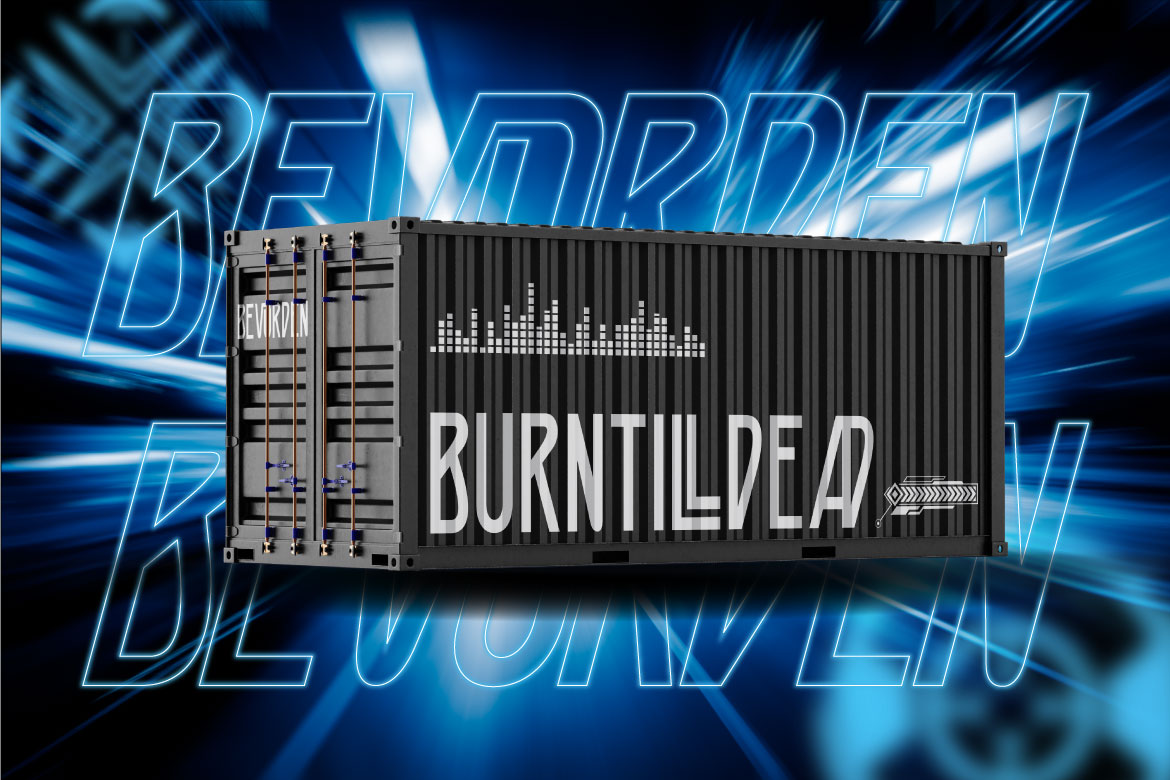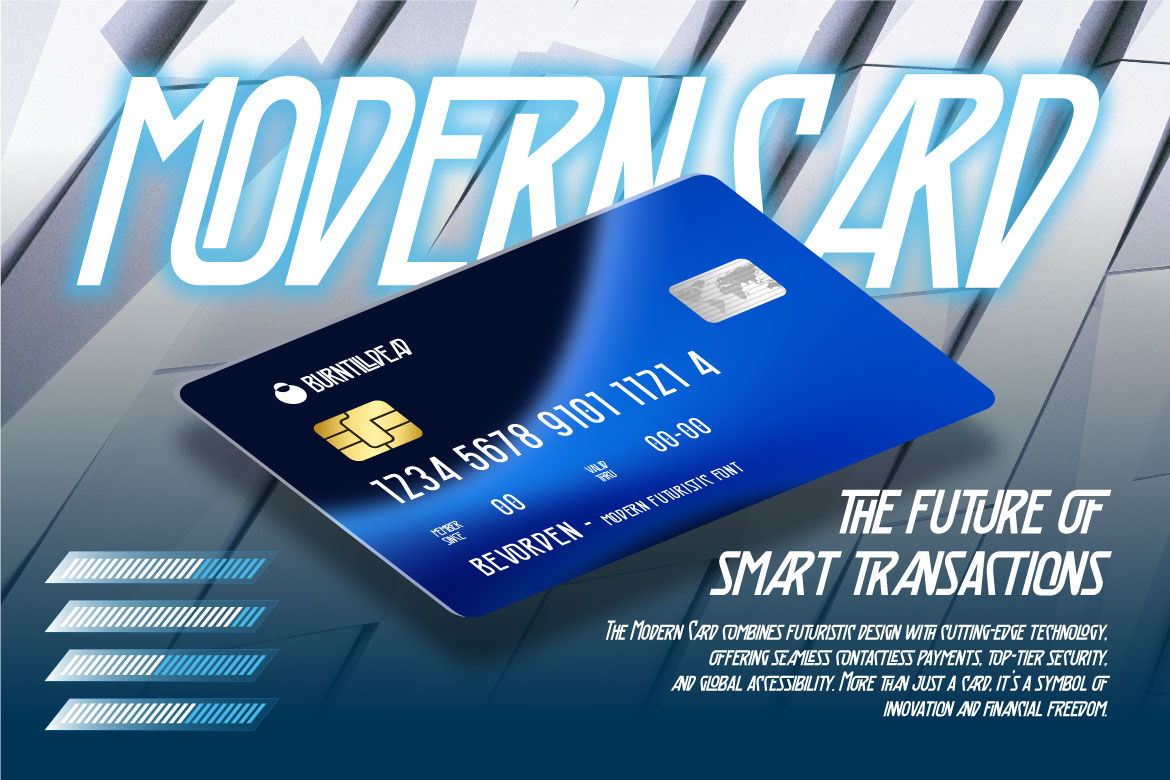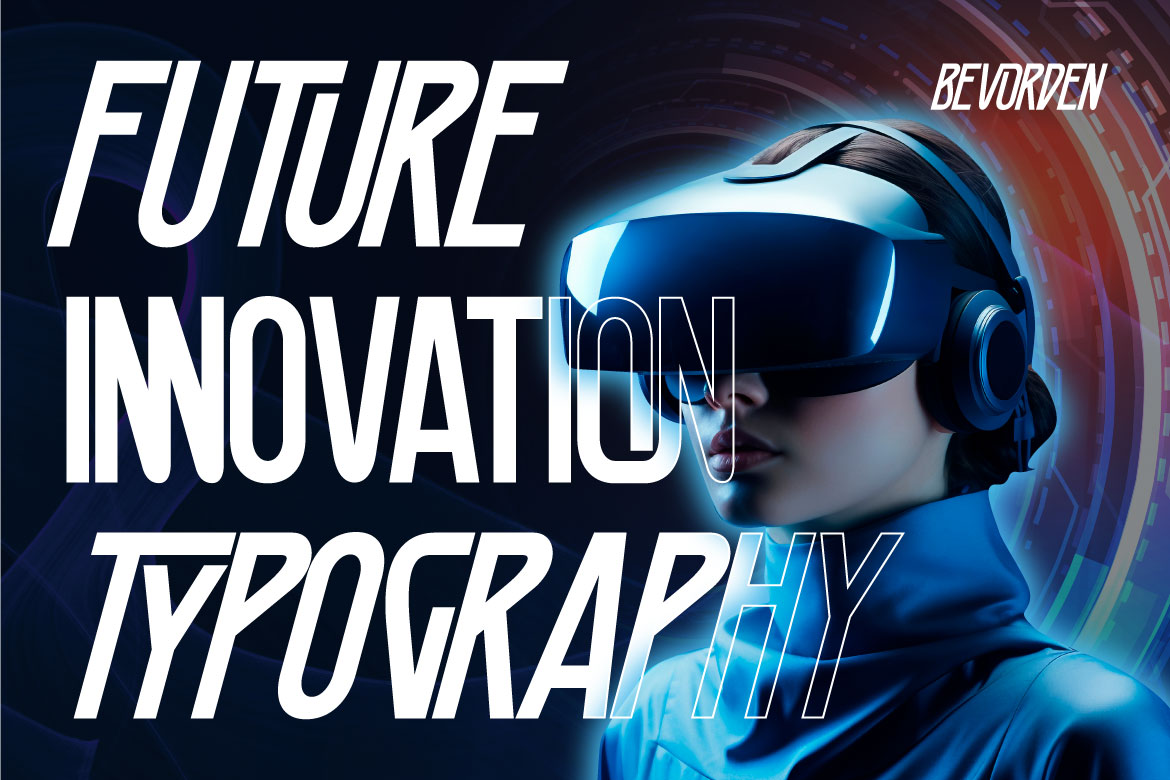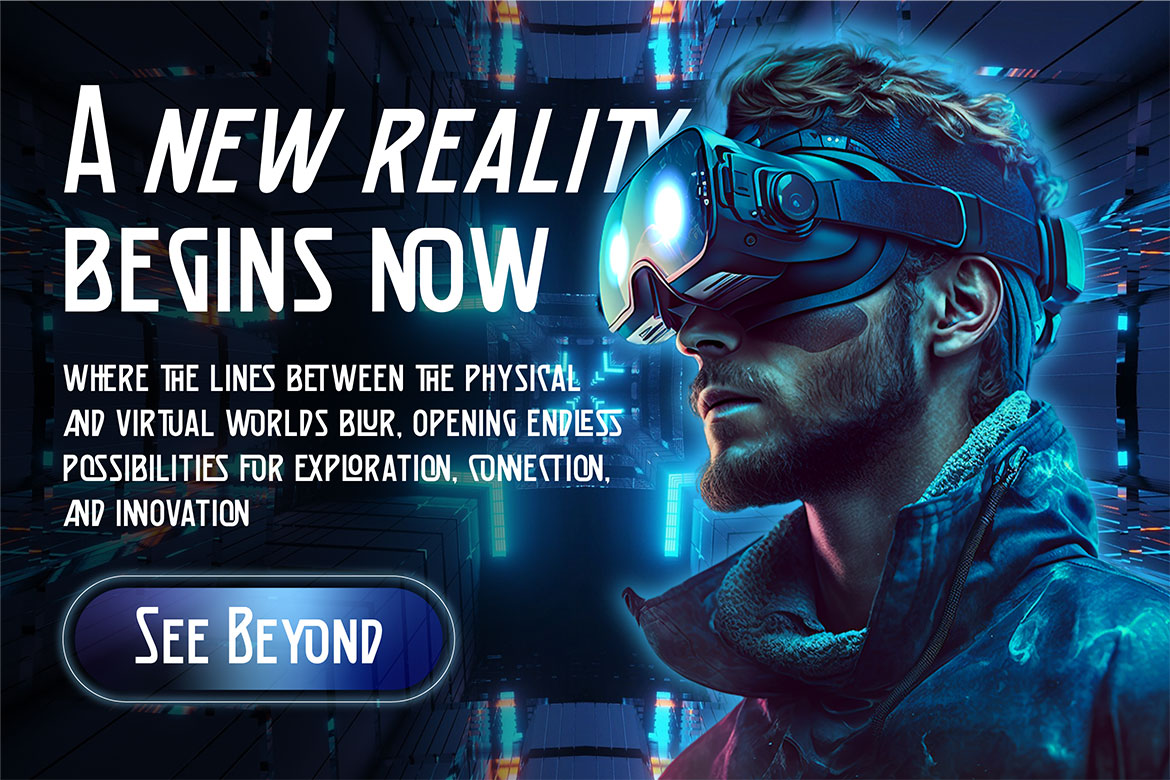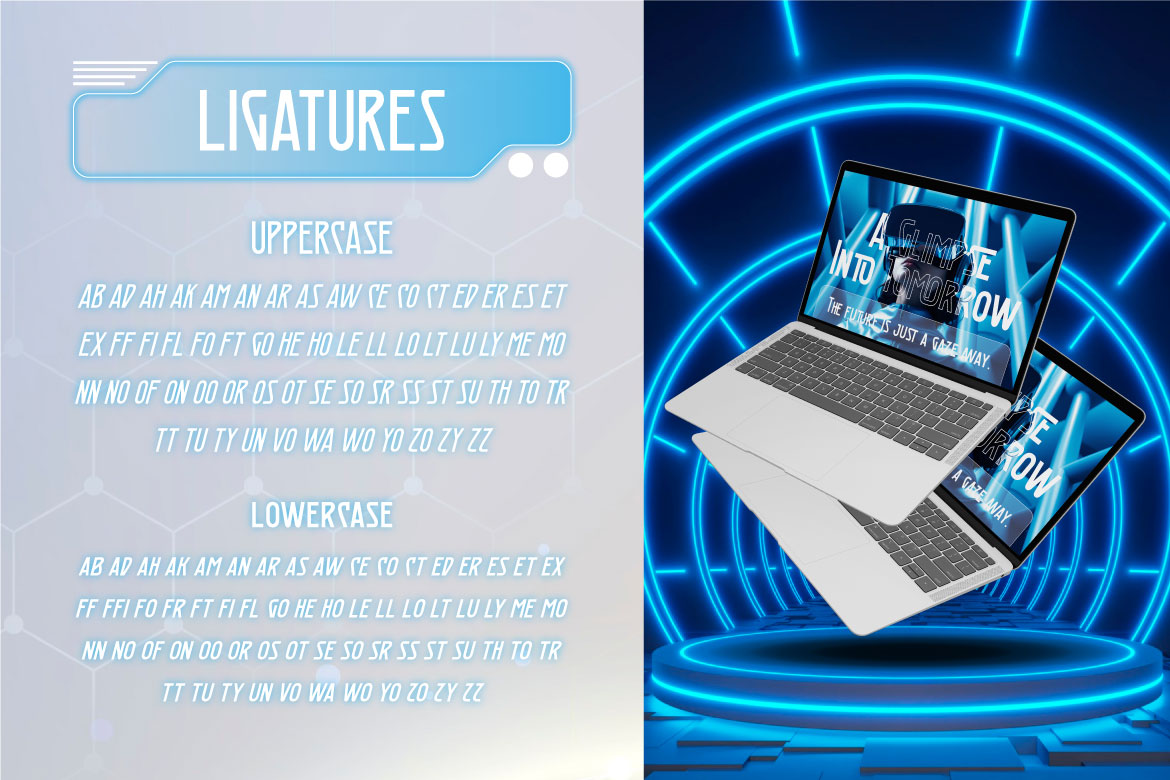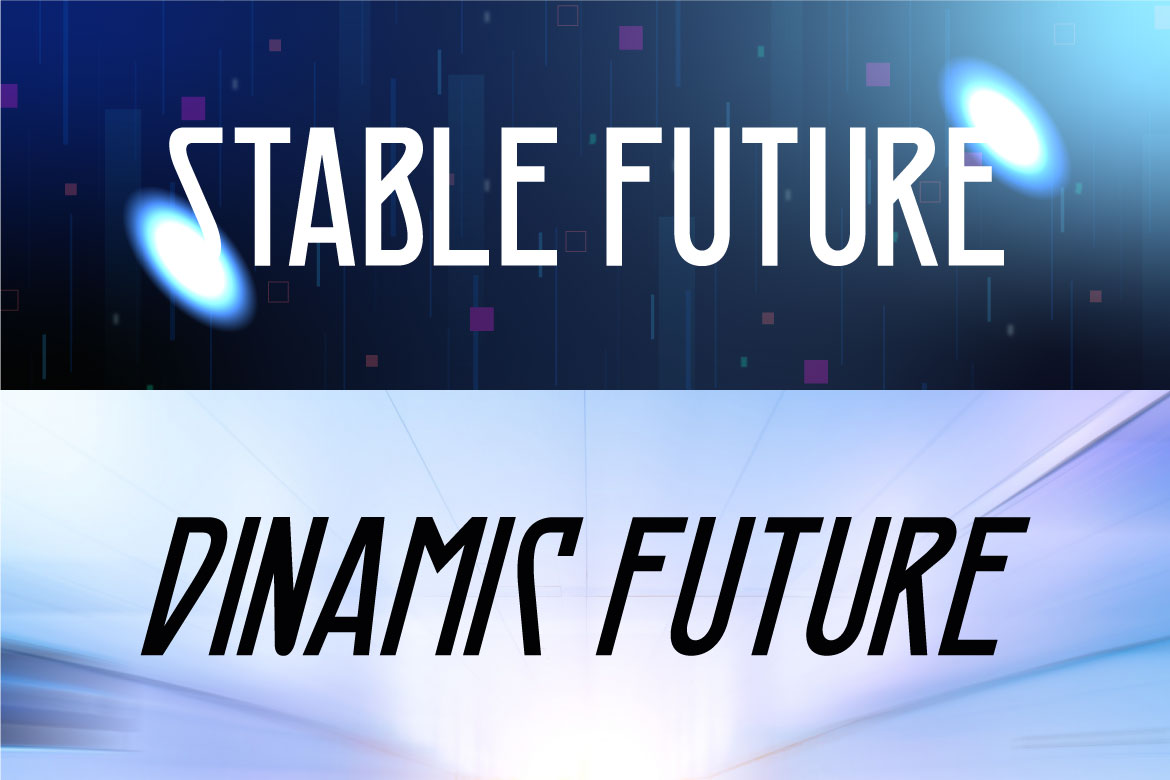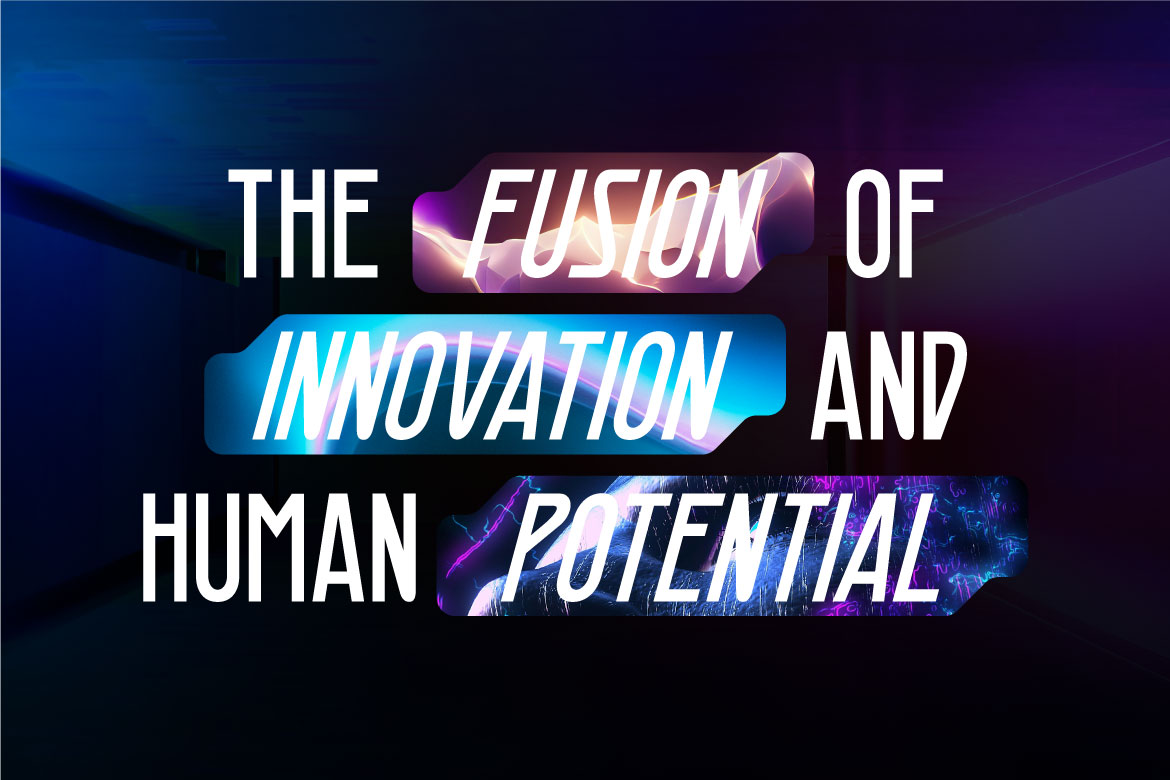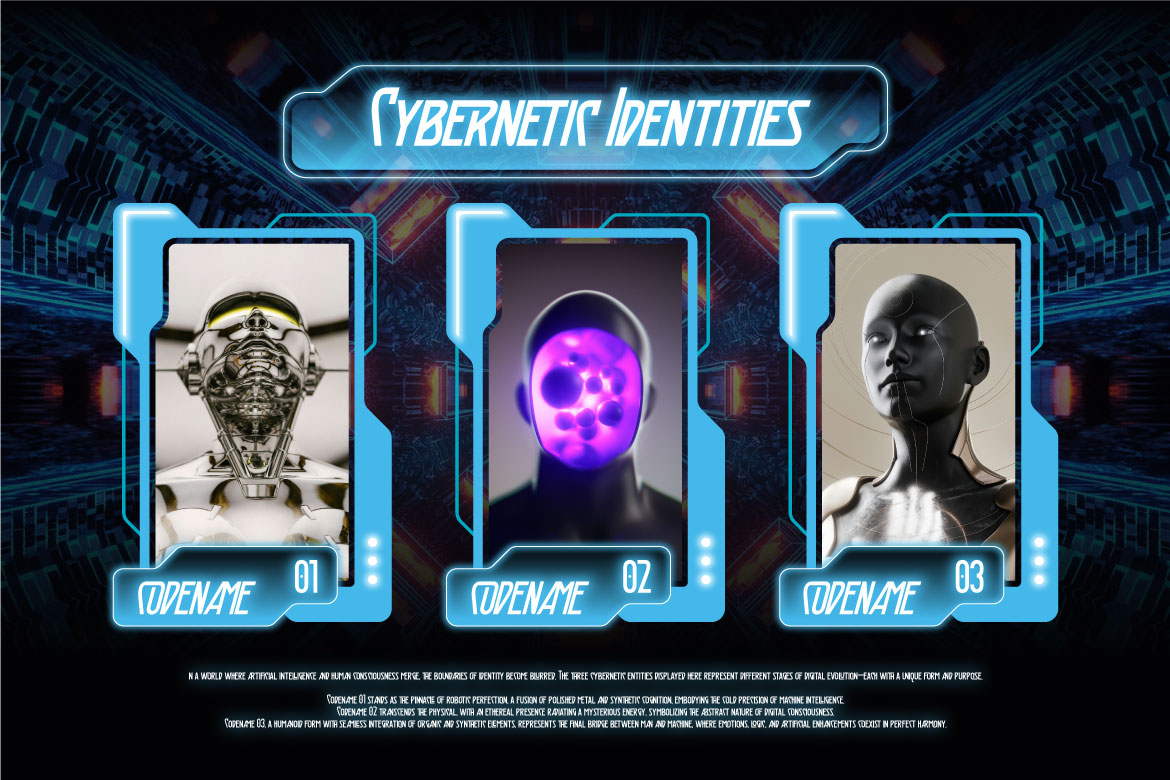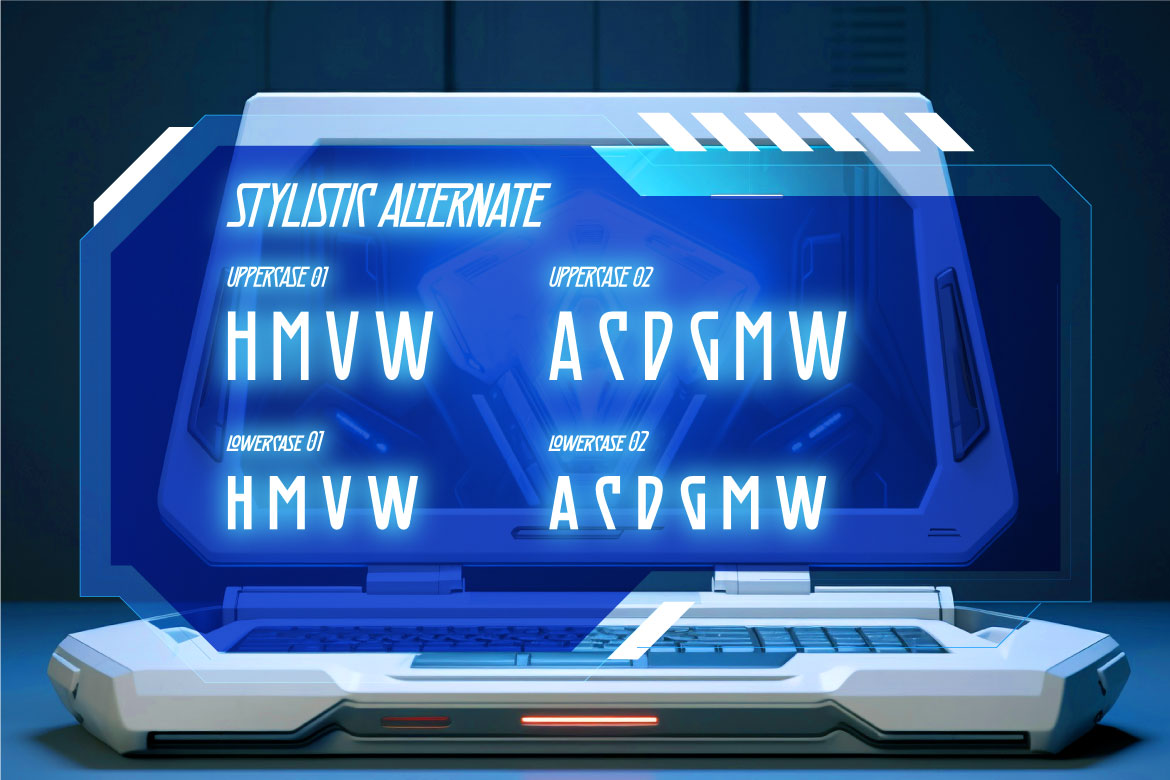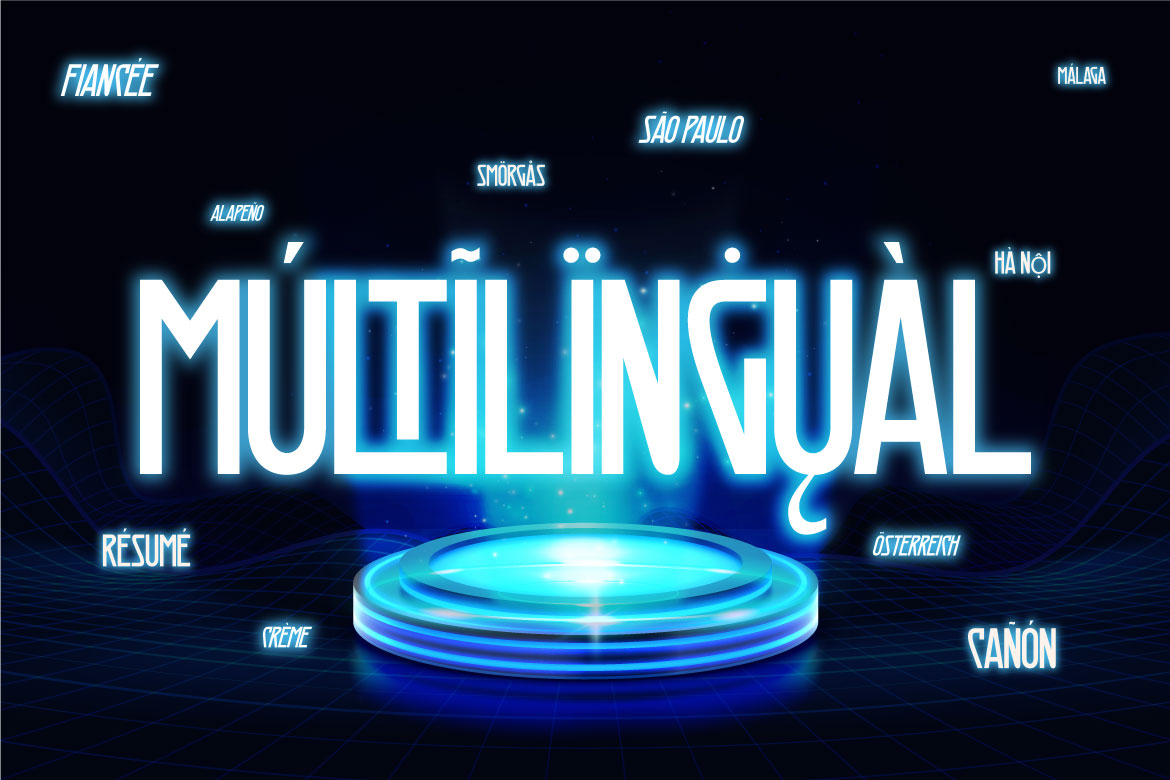
- Bevorden
Introducing Bevorden, a modern futuristic font designed for visionaries, innovators, and dreamers. This bold display font carries a sleek, techy, and immersive personality—perfect for virtual reality, sci-fi themes, future-tech concepts, games, and cyberpunk-inspired films.
Some letters feature unique cuts and subtle distortions that enhance the digital and virtual vibe. Despite its experimental look, Bevorden remains clean, readable, and eye-catching thanks to its distinctive geometric style.
Bevorden brings a strong digital-age energy to your design. Whether it’s for branding, headlines, logos, sci-fi movie posters, game covers, future-focused campaigns, startup presentations, or AR/VR UI design, this font helps your work stand out and feel ahead of its time.
- Uppercase & Lowercase (All Caps)